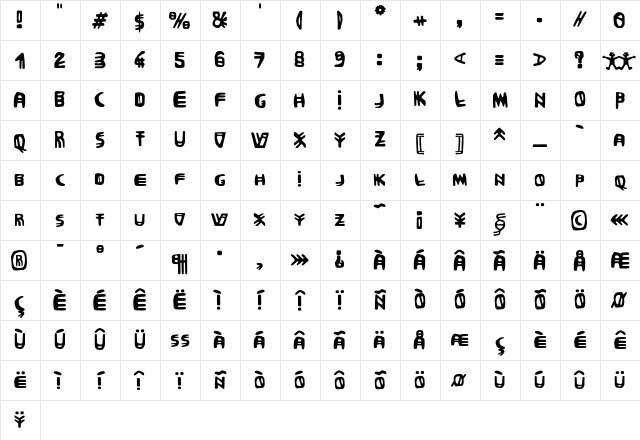
Coltello Regular
Design Context for Coltello
Coltello is a composed and adaptable typeface that performs quietly and consistently across a wide range of design contexts.